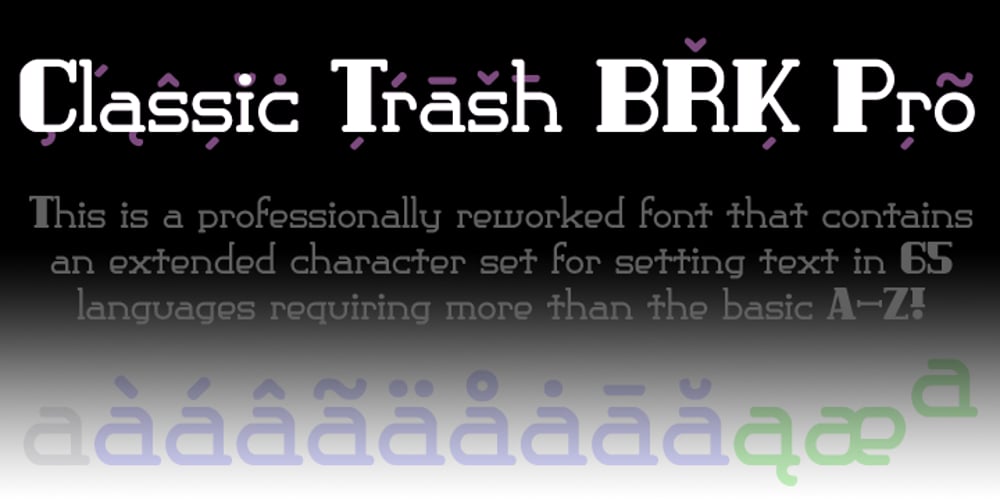
Classic Trash BRK Pro Font Family was designed by Roger S. Nelsson, Brian Kent and published by CheapProFonts. Classic Trash BRK Pro contains 1 styles and family package options. A typical Art Deco font with high contrast. I have mirrored the uppercase A and M to give the strokes a correct direction, and shortened/widened a few lowercase letters to give the text a more even color. A stylistic 30s-looking font is ready for international text-setting! ALL fonts from CheapProFonts have very extensive language support: They contain some unusual diacritic letters (some of which are contained in the Latin Extended-B Unicode block) supporting: Cornish, Filipino (Tagalog), Guarani, Luxembourgian, Malagasy, Romanian, Ulithian and Welsh. They also contain all glyphs in the Latin Extended-A Unicode block (which among others cover the Central European and Baltic areas) supporting: Afrikaans, Belarusian (Lacinka), Bosnian, Catalan, Chichewa, Croatian, Czech, Dutch, Esperanto, Greenlandic, Hungarian, Kashubian, Kurdish (Kurmanji), Latvian, Lithuanian, Maltese, Maori, Polish, Saami (Inari), Saami (North), Serbian (latin), Slovak(ian), Slovene, Sorbian (Lower), Sorbian (Upper), Turkish and Turkmen. And they of course contain all the usual “western” glyphs supporting: Albanian, Basque, Breton, Chamorro, Danish, Estonian, Faroese, Finnish, French, Frisian, Galican, German, Icelandic, Indonesian, Irish (Gaelic), Italian, Northern Sotho, Norwegian, Occitan, Portuguese, Rhaeto-Romance, Sami (Lule), Sami (South), Scots (Gaelic), Spanish, Swedish, Tswana, Walloon and Yapese.